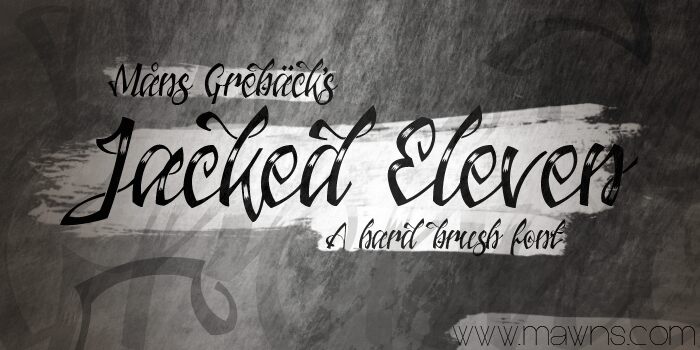
Jacked Eleven Highlight by Måns Grebäck is a free graffiti script with oversized strokes, sharp turns, and a restless street-lettering silhouette. Dry white streaks give the broad forms a scraped marker texture.
Album artwork is its strongest setting, especially for punk, metal, or underground hip-hop releases that benefit from lettering with speed, abrasion, and a hand-painted edge. It also suits skate merchandise, club posters, event graphics, and independent fashion labels tied to urban music, action sports, or DIY culture.